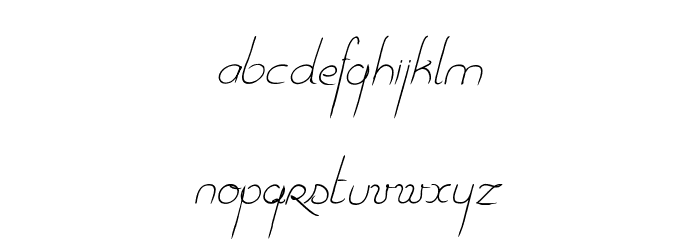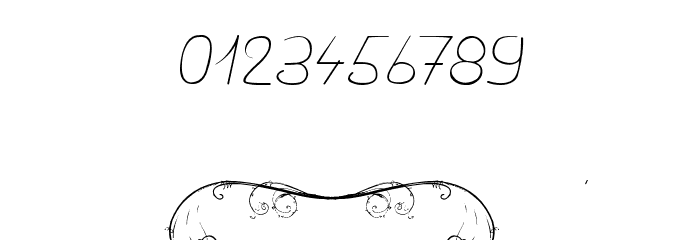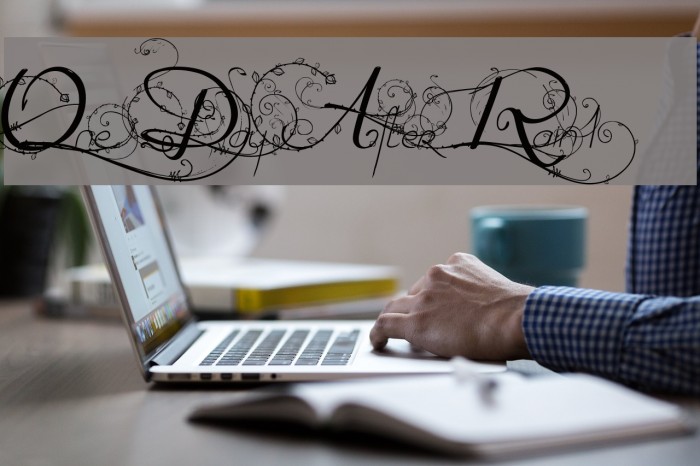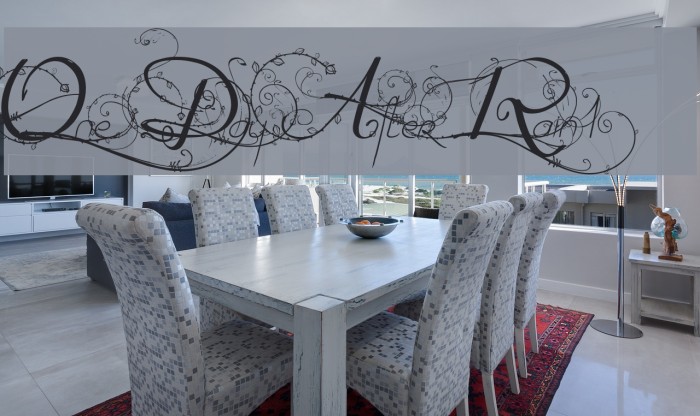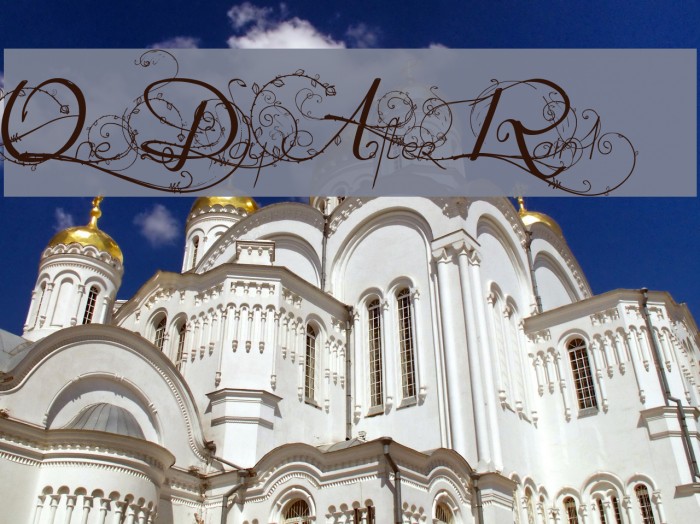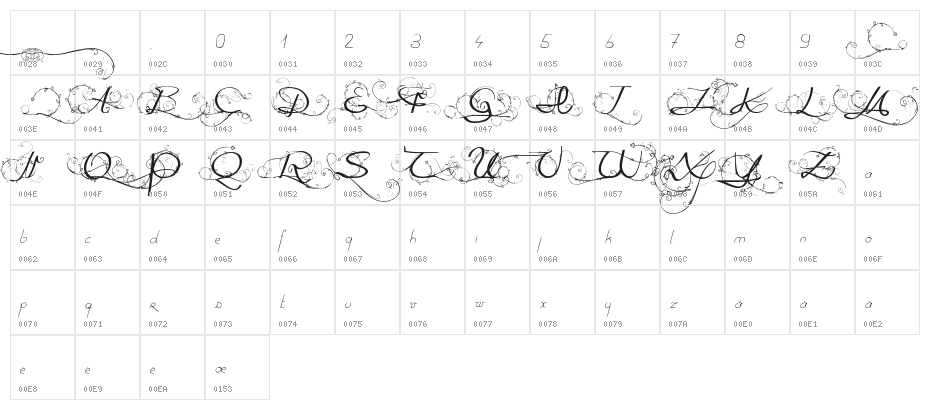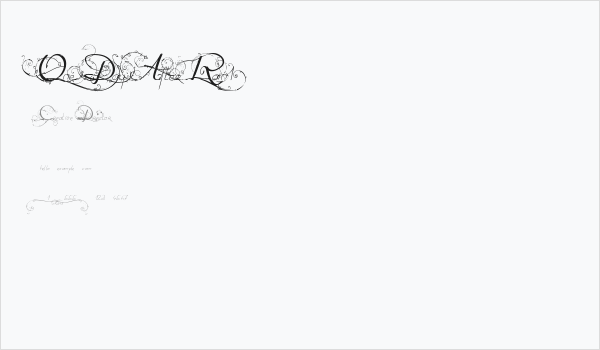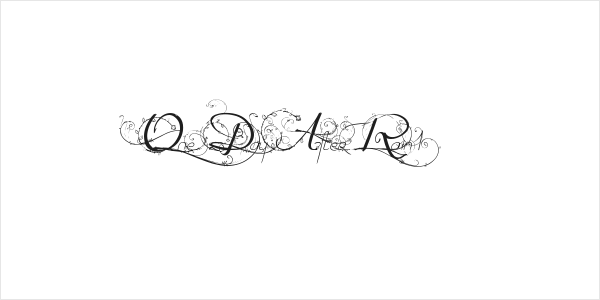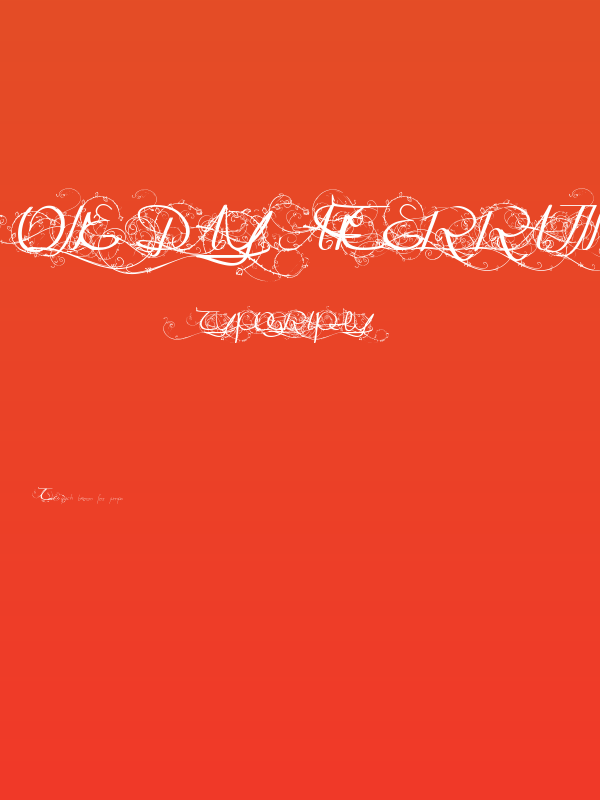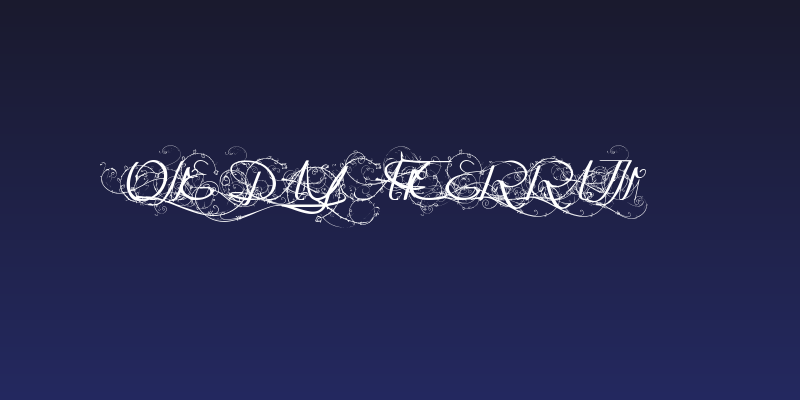
One Day After Rain1 Font
This font is an elaborate and decorative typeface that combines intricate swirls and flourishes with a delicate, thin stroke. The uppercase letters are particularly ornate, with each character adorned with elaborate embellishments that give it a whimsical and artistic feel. The lowercase letters maintain a more streamlined appearance, yet still carry a sense of elegance and fluidity. The numbers are consistent with the lowercase style, offering a cohesive look across the entire character set. This font's unique style makes it stand out, ideal for projects that require a touch of sophistication and creativity.
An ornate and decorative font with intricate swirls and elegant strokes.
- Font: One Day After Rain1
- Proposed Projects: Ideal for wedding invitations, artistic posters, branding for luxury products, and decorative book covers.
- Weight: Light
- Use Case: Logos, Invitations, Artistic Projects